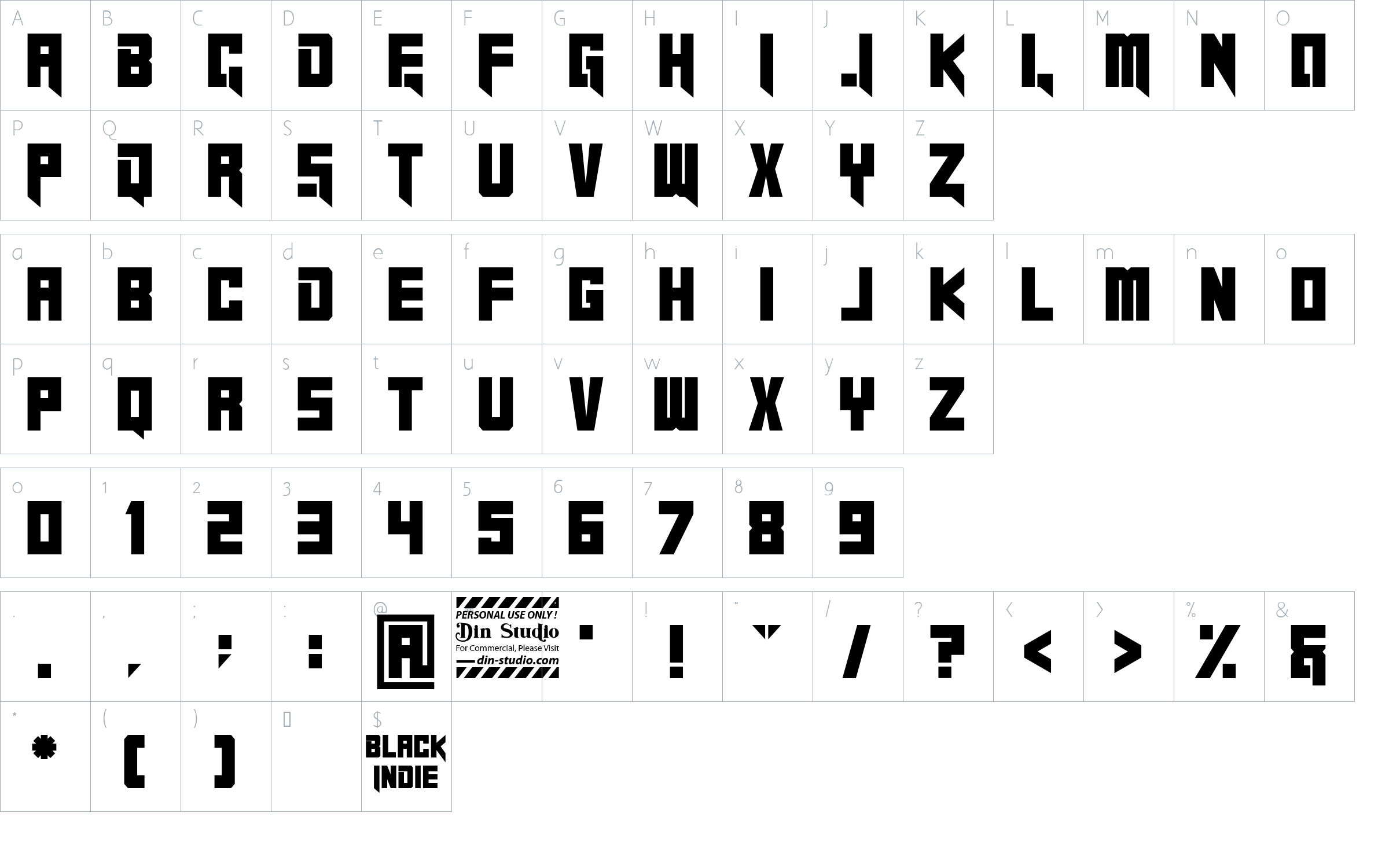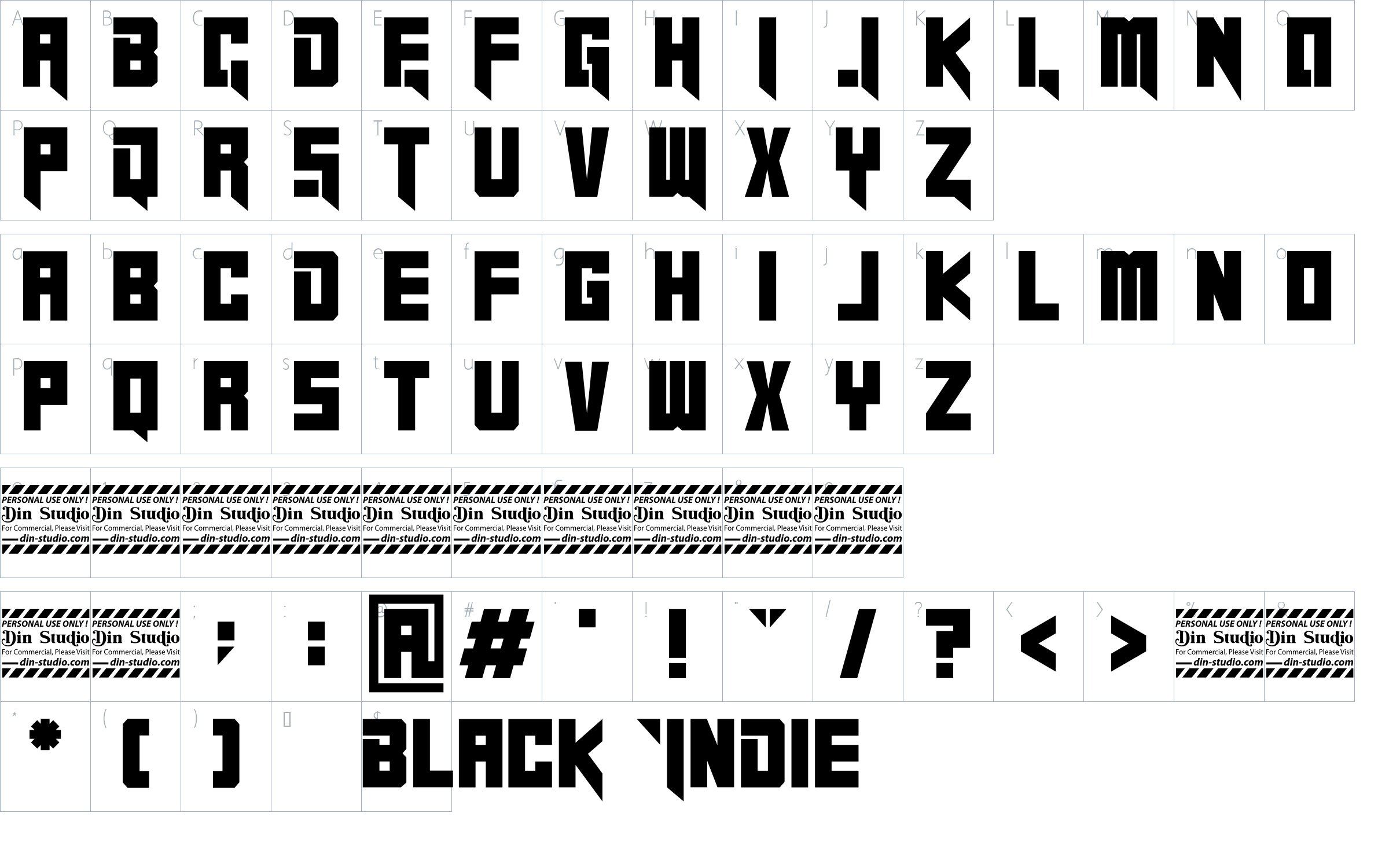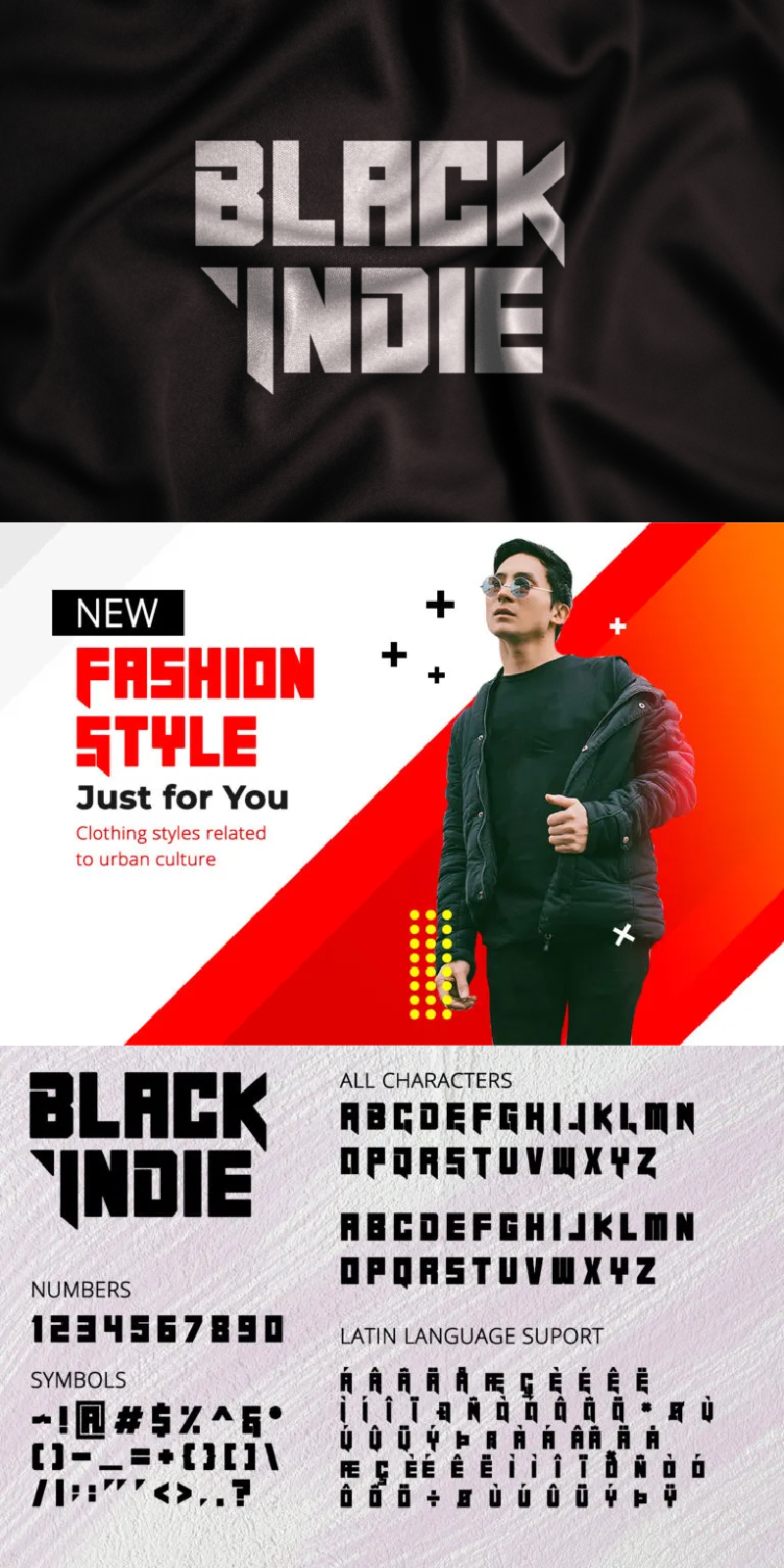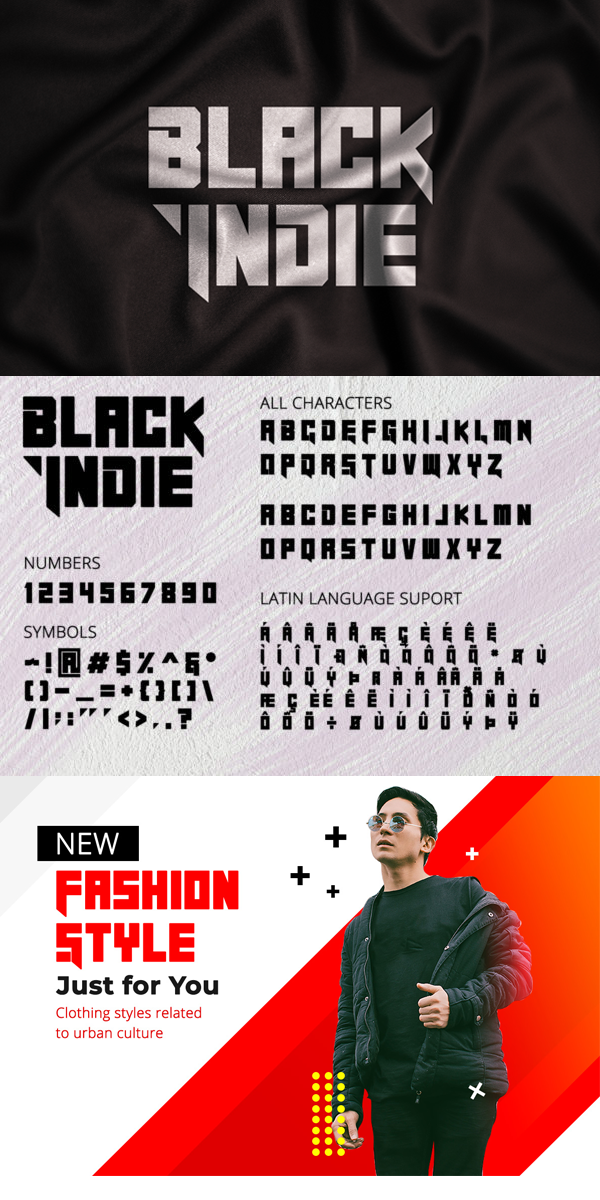
Black Indie Font
About Black Indie
Black Indie is a bold and authentic display font. The font is suitable for any branding project like logo, t-shirt printing and many more. outstanding in a wide range of contexts. See the previews above to get some inspiration on how you can use them. Enjoy the font!
Featured :
- Accents (Multilingual characters)
- PUA encoded
- Numerals and Punctuation (OpenType Standard)